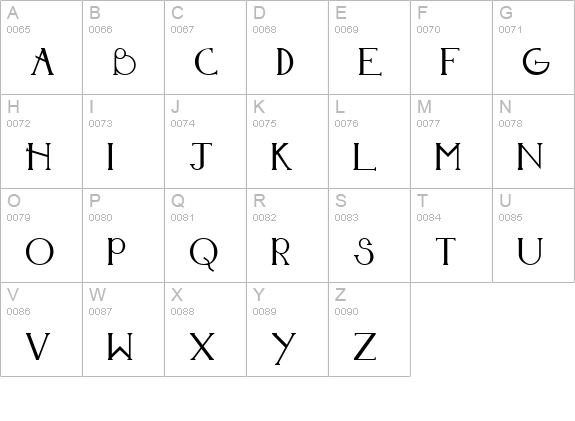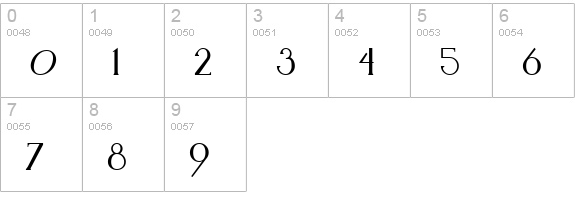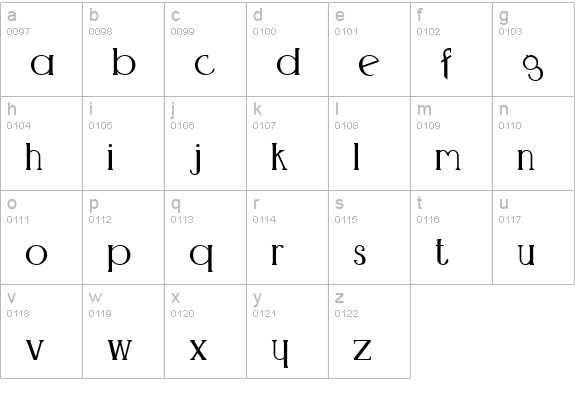
NeuSerif Font Details
NeuSerif is a modern and stylish font that effortlessly combines the classic elegance of serif typefaces with a contemporary twist. Its clean lines and sharp edges give it a sleek and professional look, making it perfect for a wide range of design projects. Whether you are creating a logo, designing a website, or working on a print layout, NeuSerif will add a touch of sophistication to your work. What's even better is that NeuSerif is available for free download at FontsMarket.com. This means that you can easily access this high-quality font without having to spend a dime. With its versatility and accessibility, NeuSerif is a must-have addition to any designer's toolkit. Elevate your designs with NeuSerif and make a lasting impression on your audience.